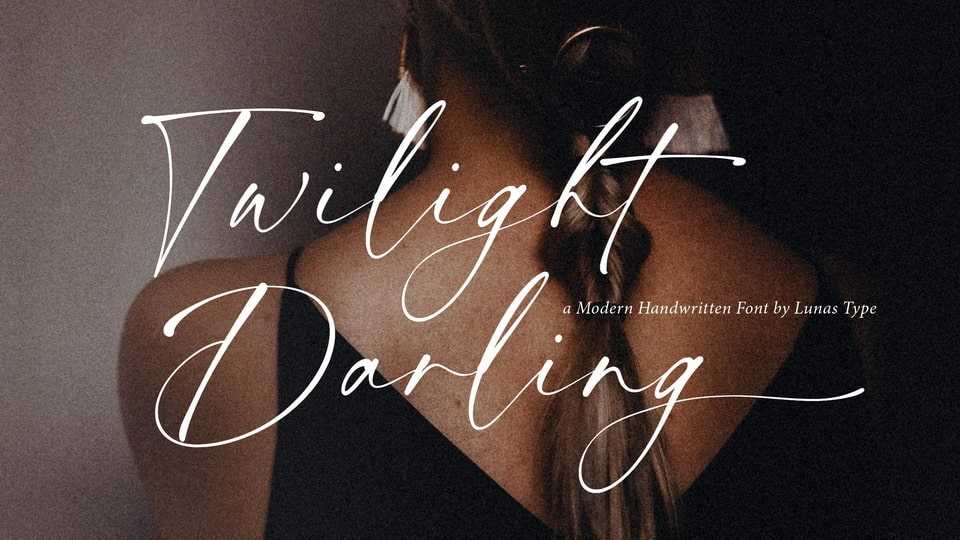
Download Twilight Darling font, an elegant signature font with natural flow and feminine style. Twilight Darling font is perfect for many design needs such as merch, t-shirts, titles, book covers, social media posts, websites, events, and many more.
Designer: Lunas Type